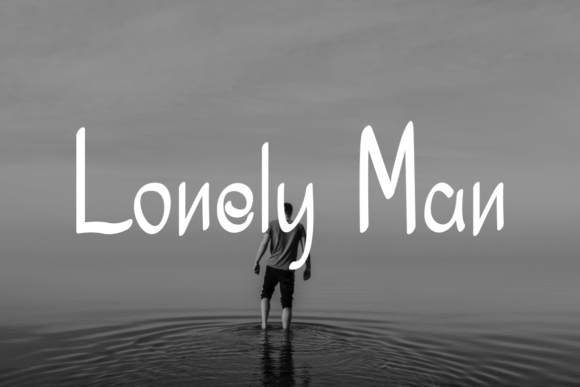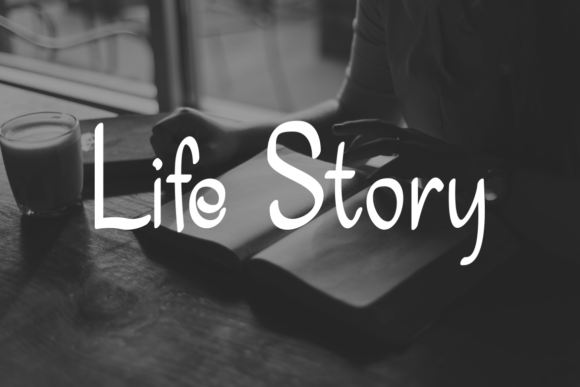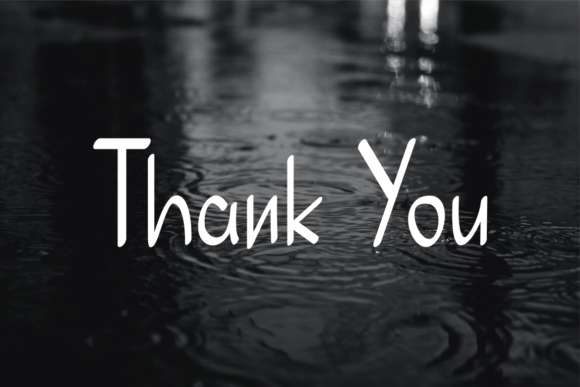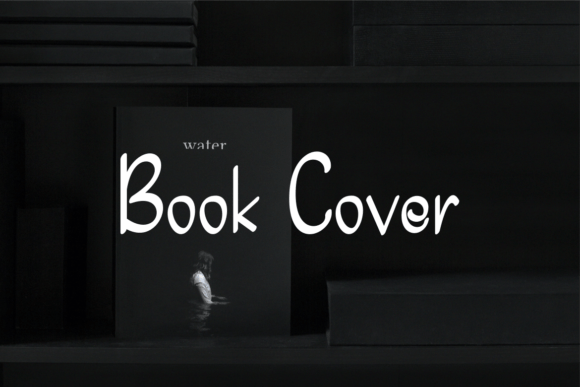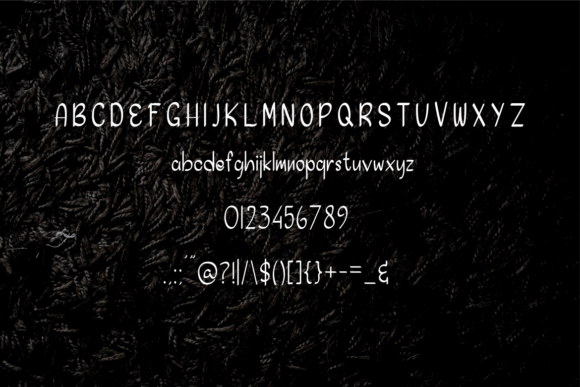
Unlocking the Power of Handwritten Charm
Have you ever stumbled upon a quirky, handwritten note that instantly sparks your creativity? Perhaps it was a vintage postcard or a friend’s doodle that made you smile. Whatever the trigger, it’s moments like these that remind us of the beauty of handwritten expression. In the world of design, capturing that same essence is a constant pursuit.
That’s where the Calico Monda Font comes in – a bold and authentic handwritten font designed to add a touch of personality to your projects. Whether you’re crafting a logo, designing a t-shirt, or creating an esports brand identity, this font is sure to make your designs stand out. With its versatility and charm, the Calico Monda Font is a valuable addition to any designer’s toolkit.
Calico Monda Font Key Features
- Unique Characteristics: The font features a unique blend of modern and vintage elements, with a distinctive monolinear design and subtle texture.
- Font Width: The font has an average width, making it suitable for both narrow and wide text arrangements, and is ideal for body text, headlines, and titles.
Review of Calico Monda Font
Overall, I found Calico Monda Font to be a charming and whimsical typeface, perfect for adding a touch of vintage flair to your designs. ✨ The font’s unique blend of organic and geometric elements creates a visually appealing aesthetic that’s sure to captivate your audience.
One of the standout features of Calico Monda Font is its versatility. ✨ It can be used for a wide range of applications, from headings and titles to body text and even logos. The font’s varying weights and styles make it easy to create a cohesive visual identity for your brand.
Here are some of the key strengths of Calico Monda Font:
- ✨ Unique and distinctive aesthetic
- ✨ Versatile and easy to use
- ✨ Suitable for a wide range of applications
However, I did encounter some limitations when working with Calico Monda Font:
- ⚠️ Limited support for certain languages and character sets
- ⚠️ Can be difficult to read in smaller font sizes
Overall, I would recommend Calico Monda Font to designers looking to add a touch of personality to their projects. While it may have some limitations, its unique aesthetic and versatility make it a valuable addition to any design toolkit.
Tips for Getting the Most Out of Calico Monda Font
For optimal results, use Calico Monda Font in conjunction with other vintage-inspired elements, such as distressed textures and ornate illustrations. Experiment with different font sizes and colors to create visually appealing contrast.
Calico Monda Font is ideal for use in creative projects, such as:
– Artistic prints and posters
– Vintage-inspired branding and marketing materials
Alternatives to Calico Monda Font
What is the recommended font size for Calico Monda?
The recommended font size for Calico Monda depends on the intended use and the design application. However, as a general guideline, use font sizes between 10pt and 24pt for body text, and 36pt to 48pt for headings. This will ensure optimal legibility and visual impact.